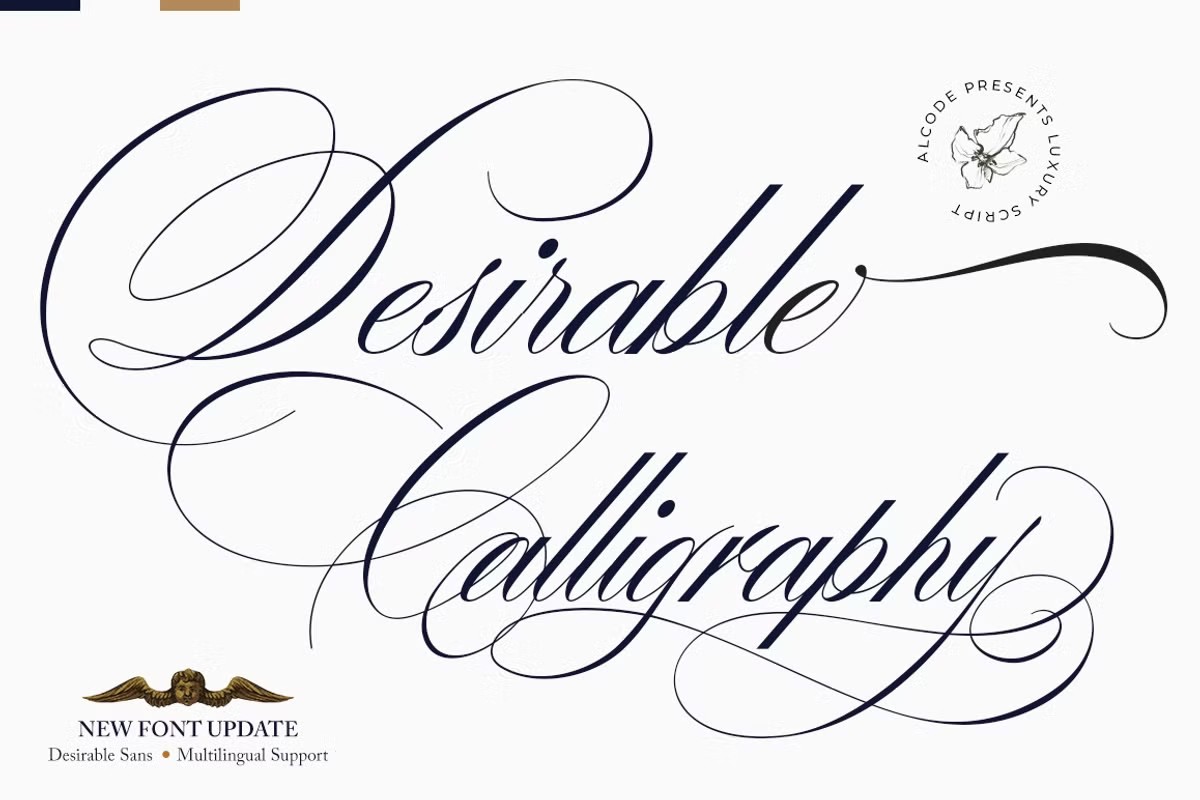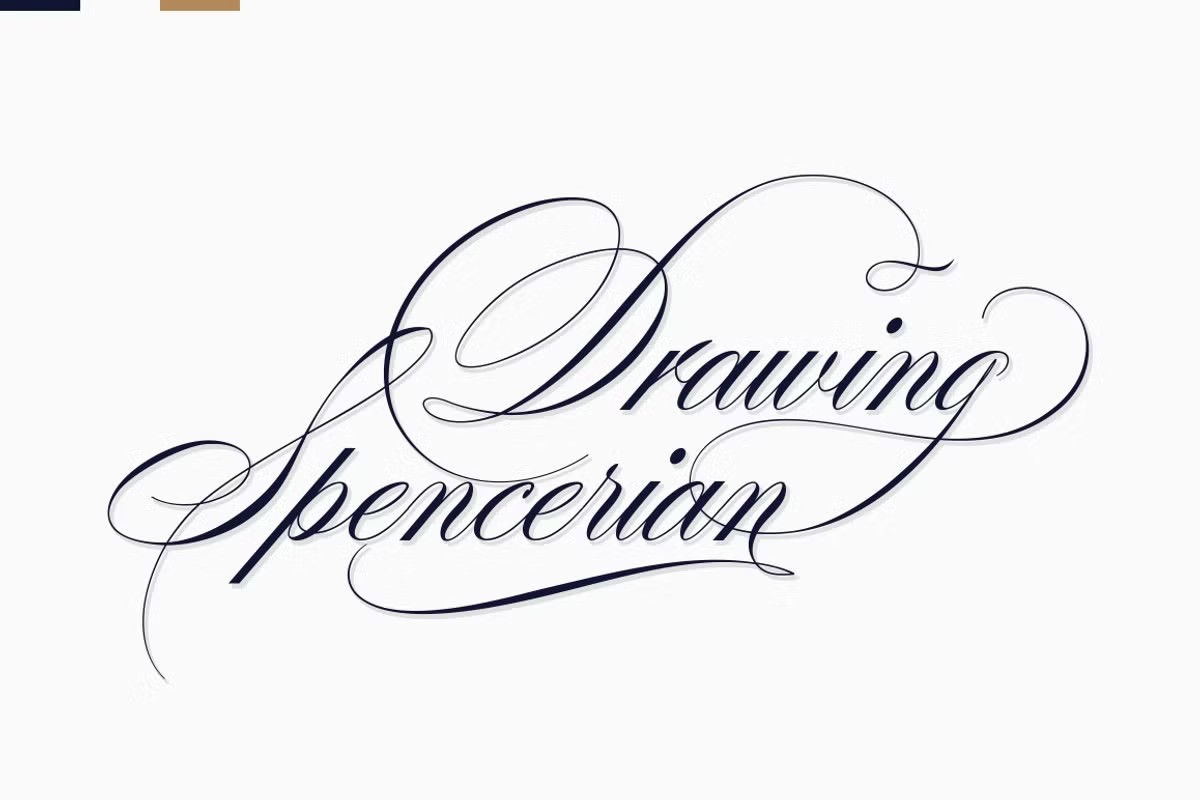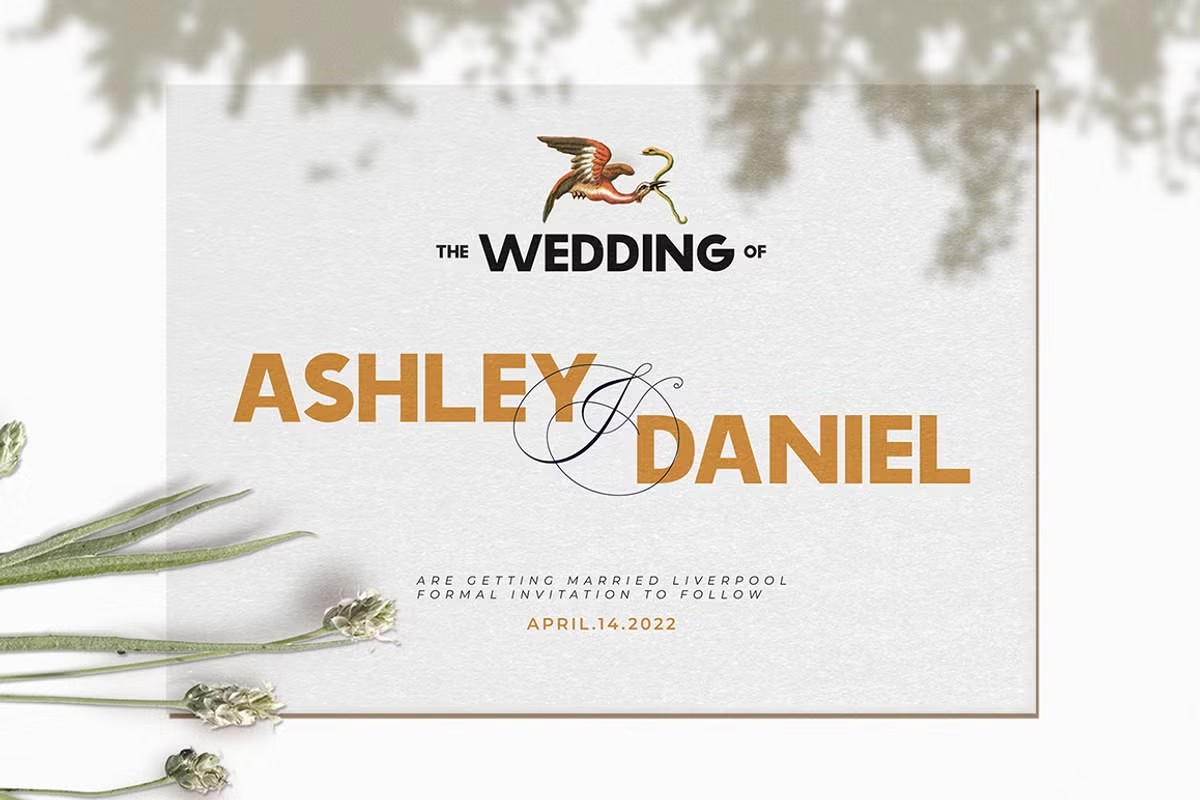
Desirable Calligraphy Font
About Desirable Calligraphy Font
I’m a typographer and graphic designer who’s always looking for fonts that bring emotion into a brand. While working on a luxury wedding brand, I needed something elegant yet personal. That’s when I discovered the Desirable Calligraphy Font. It instantly felt right. I used it on the logo, thank-you cards, and certificate layouts. The curves, flow, and rhythm brought everything together with a soft but confident voice. I’m sharing this review because I believe this font deserves attention. If you’re in design and love fonts with meaning and detail, this one’s worth a closer look.
Font Type and Designer
Desirable Calligraphy Font is a script typeface created with intention. Designed by Sukjana Almunandar and published by Alcode, this font mixes classic handwriting with high-end elegance. It draws inspiration from the handwriting of Italian women and ancient scripts. That blend gives it an old-world beauty without feeling dated. Every curve feels graceful. Every stroke adds warmth.
The font has a flowing form that mimics hand lettering. The spacing is balanced and ideal for use across print and digital designs. Whether you’re using it for a webfont or creating assets for desktop use, it adapts easily. Sukjana’s attention to detail shows in every ligature, alternative glyph, and OpenType feature. The typeface isn’t flashy. It’s confident, formal, and expressive. You’ll also find a regular and italic version, both in OTF and TTF format files.
The font comes from an independent typeface design studio offering high-quality fonts for creatives. It’s clear that the goal was to create a desirable calligraphy font that could bring beauty and function together. I think they succeeded. Try Desirable Calligraphy on your next elegant design, and you’ll see why it stands out.
Features of Desirable Calligraphy Font
This font feels like writing with a fine pen on soft paper. It flows naturally, thanks to the smooth ligatures and glyph variations built into the opentype features. Whether you’re using it for greeting cards or creating a full brand identity, it fits right in. Each letter carries weight and movement.
It includes a classic style and a touch of elegance, making it perfect for formal or luxurious themes. The italic version adds a soft rhythm, while the regular gives you a clean base to build from. It works in both light and bold settings, which gives it more versatility than most script fonts. Whether it’s for logos, book covers, or digital media, this font performs well across all platforms.
The design is inspired, personal, and full of charm. This is a calligraphy font that doesn’t feel forced or overused. It simply works.
If your project needs a formal or emotional tone, this is the font. Desirable Calligraphy Font is suitable for branding, wedding invites, certificates, book covers, and luxury packaging. I used it on a high-end wedding brand and it fit like a glove. The script adds a human touch without losing clarity. It’s not too soft, not too dramatic—just balanced.
Use this font for creating logos that feel timeless. It’s also great for greeting cards and social media graphics that need elegance. For personal design work like journaling, hand lettering art, or digital scrapbooking, it adds charm and warmth. Want to make your portfolio feel refined? Add a touch of this font to your title pages.
This is not a one-time-use font. It’s one you’ll go back to when you need something beautiful, personal, and crafted with care.